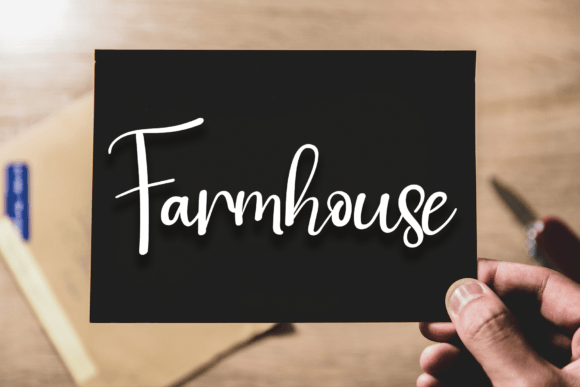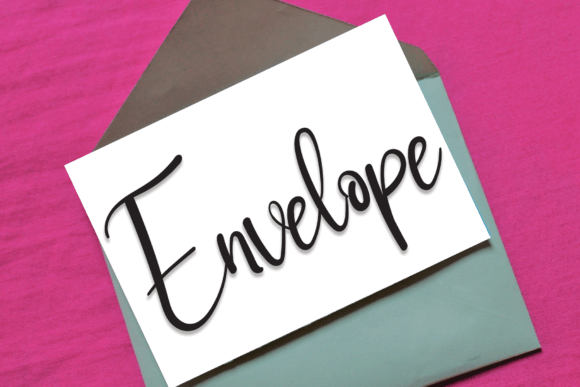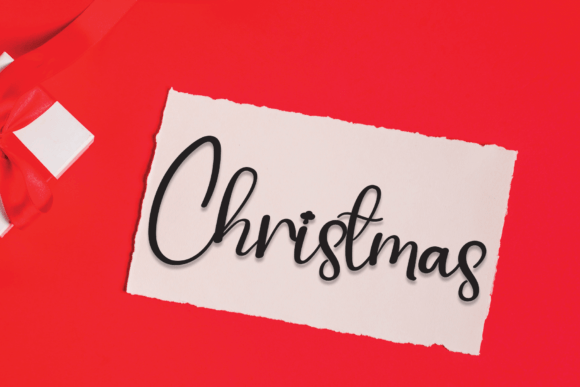
Thingking Font
The Thingking Font Download is a fun and friendly handwritten typeface created to bring charm, warmth, and creativity to any design. Its casual strokes and natural flow make it an excellent choice for projects that need personality and approachability. Whether you are working on DIY crafts, greeting cards, or professional graphics, Thingking adapts beautifully to every creative need.
A Handwritten Script with Character
Thingking captures the essence of authentic handwriting while keeping letters balanced and clear. Unlike overly decorative fonts that sacrifice readability, this font is playful yet practical. The Thingking Font Download ensures your text looks inviting, making it perfect for both casual and professional designs.
Perfect for Crafts and DIY Projects
Crafters love fonts that feel personal and handmade, and Thingking fits this role perfectly. From scrapbooking and embroidery to gift tags and wall decorations, this typeface adds a heartfelt touch to your projects. The Thingking Font Download helps your crafts stand out by blending a handmade look with a polished design.
Great for Greeting Cards and Invitations
Greeting cards and invitations deserve fonts that make messages feel special. Thingking’s handwritten charm is ideal for birthdays, weddings, thank you notes, and festive occasions. The Thingking Font Download transforms simple text into meaningful keepsakes that recipients will remember.
Ideal for Digital Design and Social Media
In today’s digital age, eye-catching fonts are essential. Thingking works beautifully for Instagram posts, Pinterest graphics, blog headers, and YouTube thumbnails. The Thingking Font Download integrates seamlessly with design software like Canva, Photoshop, and Illustrator, making it easy to create professional digital content.
A Friendly Typeface for Presentations
Presentations need fonts that are approachable yet clear. Thingking strikes the right balance by adding personality without reducing readability. Teachers, students, and professionals can all use the Thingking Font Download to make slideshows engaging while still ensuring their message is easy to follow.
Versatile for Multiple Projects
One of the biggest advantages of Thingking is its versatility. It adapts well to personal projects like crafts and greeting cards while also excelling in professional applications such as branding, packaging, and small business logos. The Thingking Font Download is a reliable choice that works across both digital and print platforms.
Why Designers Choose Thingking
Designers appreciate fonts that are stylish yet functional, and Thingking delivers both. Many handwritten fonts lose readability at smaller sizes, but this one maintains clarity while keeping its playful personality. The Thingking Font Download provides flexibility, usability, and charm, making it a favorite among creative professionals.